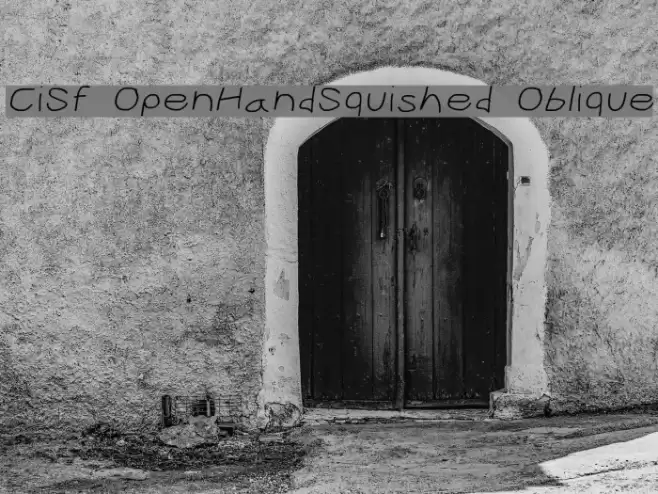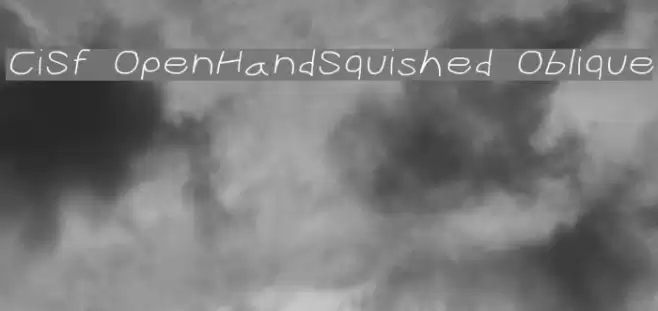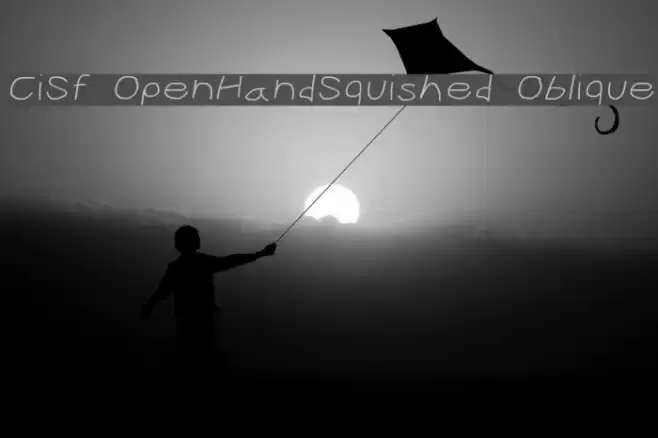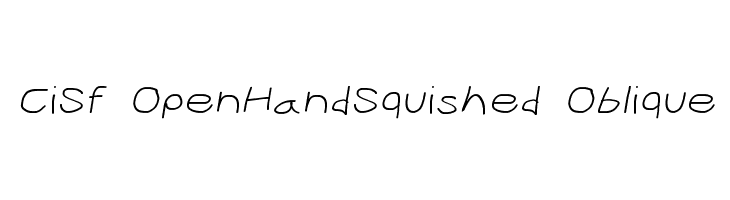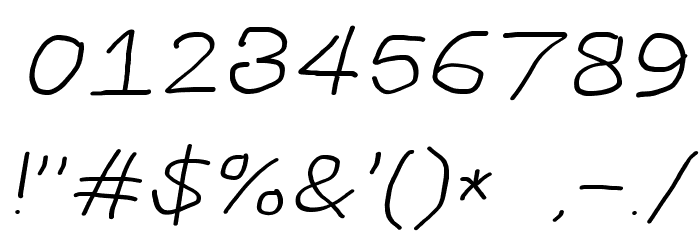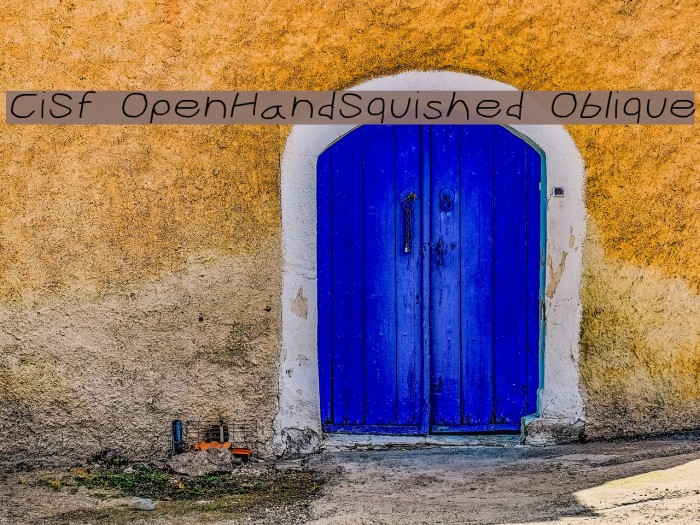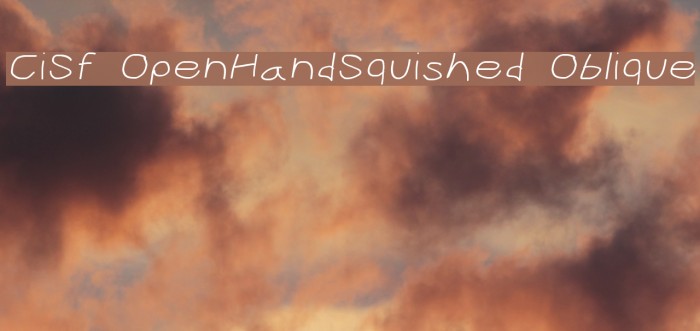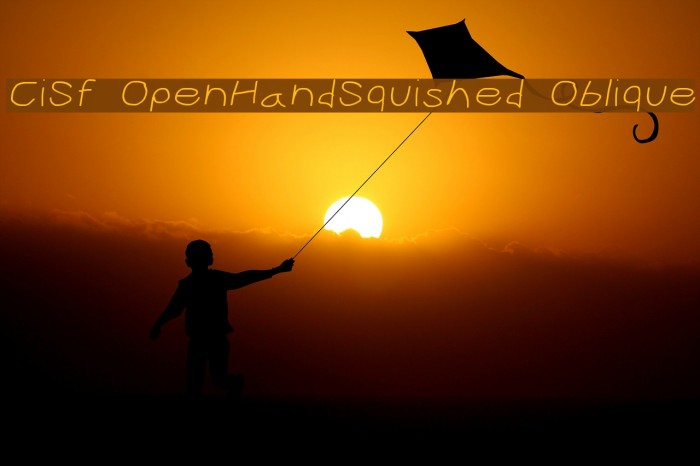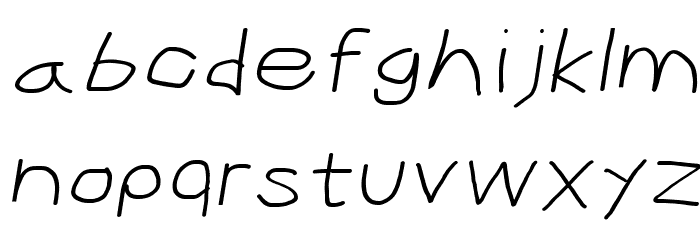
CiSf OpenHandSquished Oblique Font
CiSf OpenHandSquished Oblique Description
This font features a playful, handwritten style with a slight oblique slant, giving it a casual and informal appearance. The characters are thin and elongated, with a consistent stroke width that maintains a uniform look throughout. The uppercase and lowercase letters are well-balanced, with a natural flow that mimics handwriting. The numerals and special characters are designed to match the overall style, ensuring cohesion across all elements. This font's unique personality makes it stand out, while its legibility remains intact.
A playful, handwritten font with a slight oblique slant and consistent stroke width from Uncategorized fonts.
- Proposed Projects: Ideal for greeting cards, personal branding, casual invitations, and creative projects that require a personal touch.
- Overall Style: Casual
- Use Case: Logos, Invitations, Personal Branding